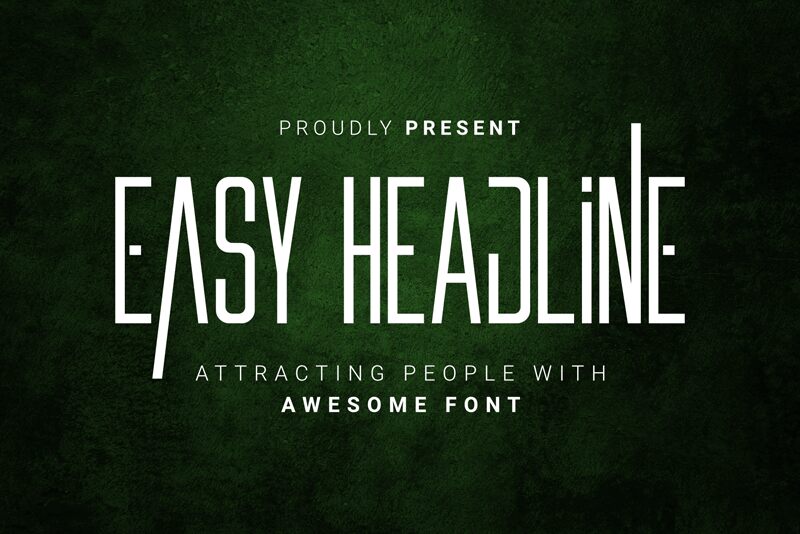
Easy Headline font by DumadiStyle is a light, condensed display font presented in a modern, futuristic style. Its geometric and abstract features make it a special artistic choice to convey both gentleness and strength. The minimalist design of this free typeface achieves an unmatched balance between simplicity on one side, and beauty on the other.
Wonderful places to use Easy Headline include posters, magazines, book covers, logos/wordmarks, banner ads (whether online or offline), social media posts and headers, landing pages and website designs. Graphic design applications like brochures would earn an immediate wow factor with eye pleasing text set in this modern font.